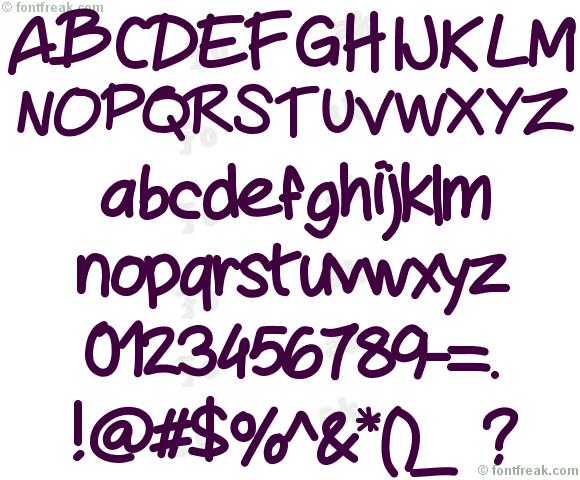
Mywriting
About Mywriting
The Mywriting font by Peax Webdesign is a charming handwritten typeface that captures the essence of personal expression. This font is classified as a script style, characterized by its fluid, flowing strokes that mimic natural handwriting. The stroke weight is consistent yet slightly varied, adding a touch of authenticity to each letter. With its moderate contrast and well-balanced spacing, Mywriting ensures readability while retaining an artistic flair. The letters possess a playful quality, making it an appealing choice for projects that require a warm and inviting touch.
Ideal use cases for the Mywriting font include wedding invitations, where its elegant yet casual vibe can beautifully convey heartfelt sentiments. Additionally, it can enhance restaurant menus, providing a cozy atmosphere that invites diners to indulge in their meal. For personal blogs or creative portfolios, the font adds a distinctive personality that resonates with audiences. Furthermore, it can be effectively used in social media graphics, helping content creators to stand out with a unique visual identity.
The target audience for this font encompasses graphic designers seeking to infuse their projects with a personal touch, small business owners looking to establish a brand identity, and content creators in need of an engaging typographic element.
What sets the Mywriting font apart is its ability to blend creativity with readability, making it versatile for various applications. Its handcrafted appearance ensures that any project feels personal and relatable, inviting viewers to connect with the message being conveyed. For those looking to add a distinctive flair to their designs, the Mywriting font free download is an excellent choice that promises to elevate any creative endeavor.